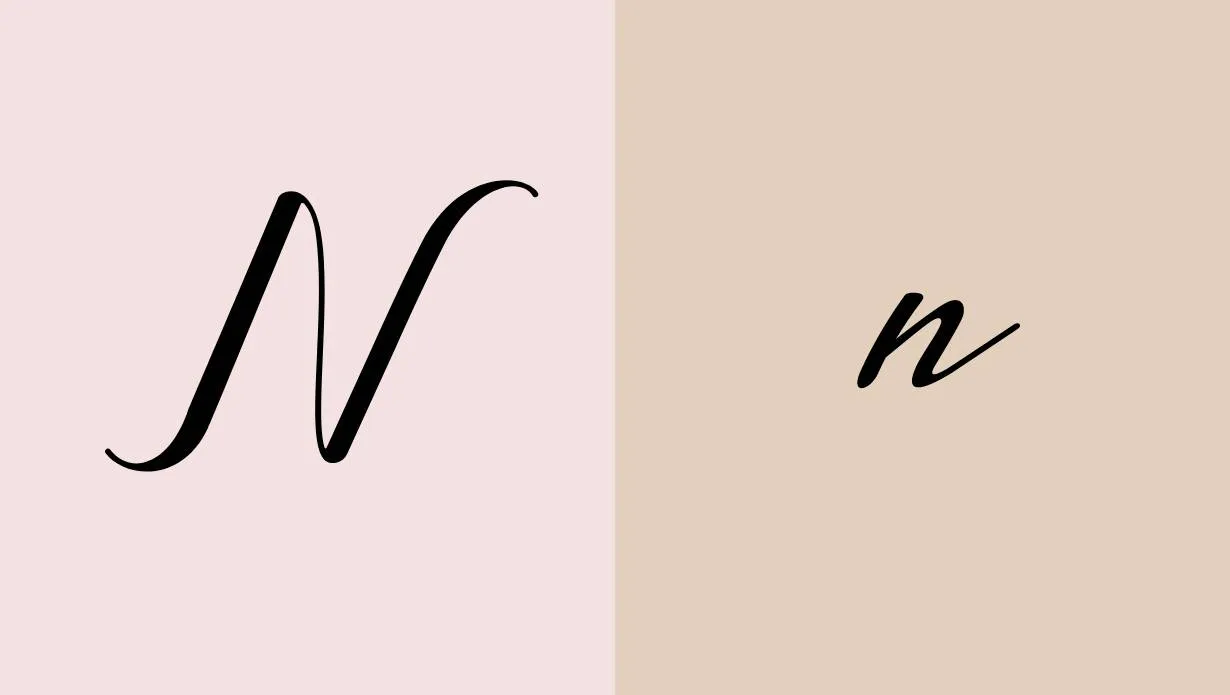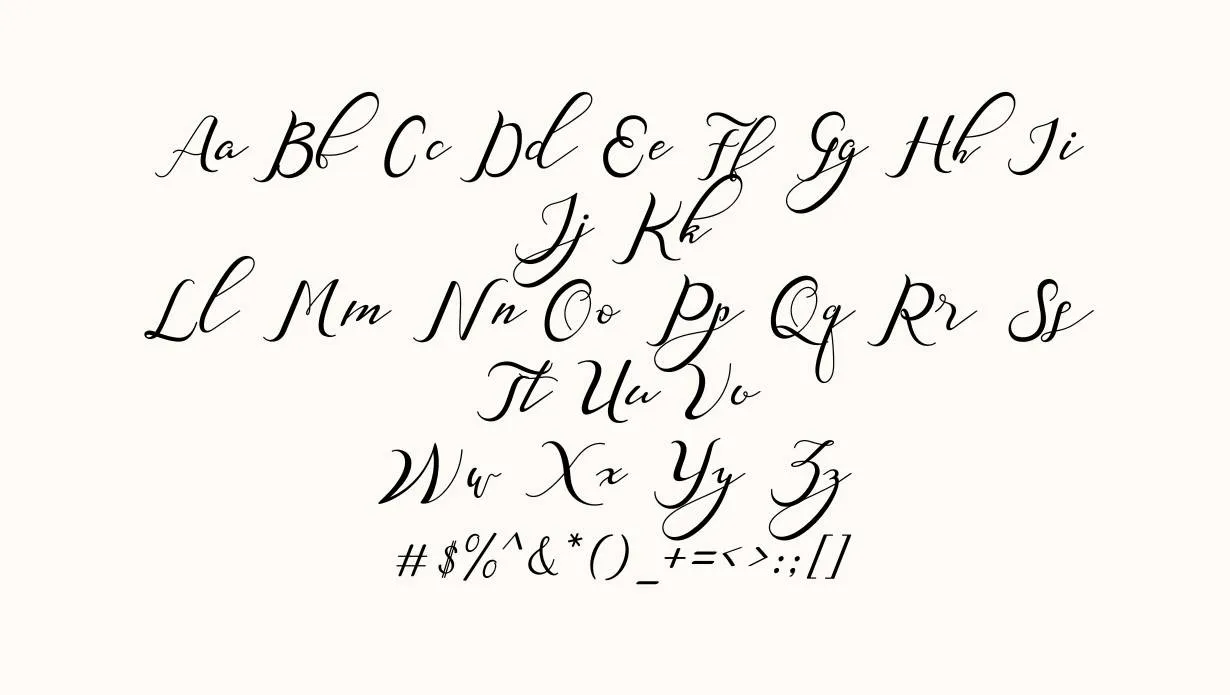
Nazeefa Font is a beautiful font was designed by Azra Qaireen and manufactured with an Aqr typeface. This stunning typeface is one regular style. You can use it for making many projects like wedding cards, greeting cards, printing T-shirts, mugs, handwritten quotes, fashion magazines, event decorations, and much more.
Nazeefa Font Family
| Name | Nazeefa Font |
| Designer | Azra Qaireen |